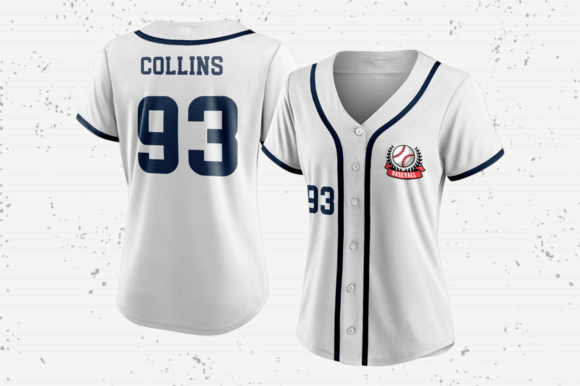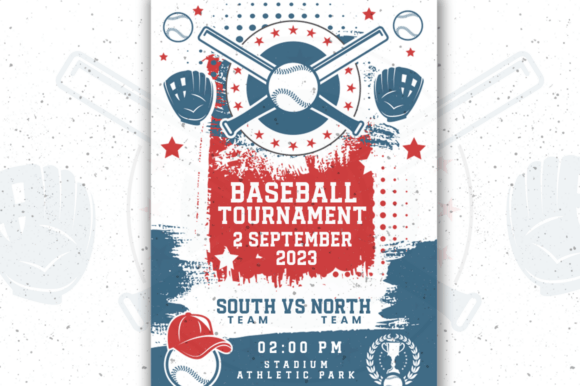
Sporting Font
Sporting is a fun and cool athletic display font. Perfect for sports-themed designs like posters, t-shirts, jerseys, sports logos, merchandise, advertising on posters, websites, and more.